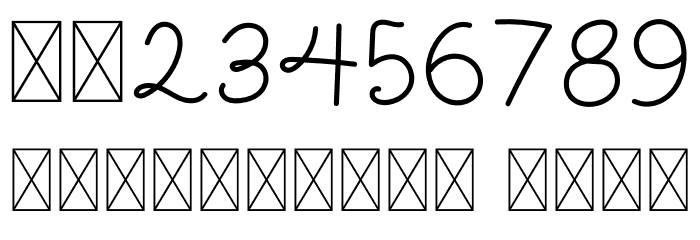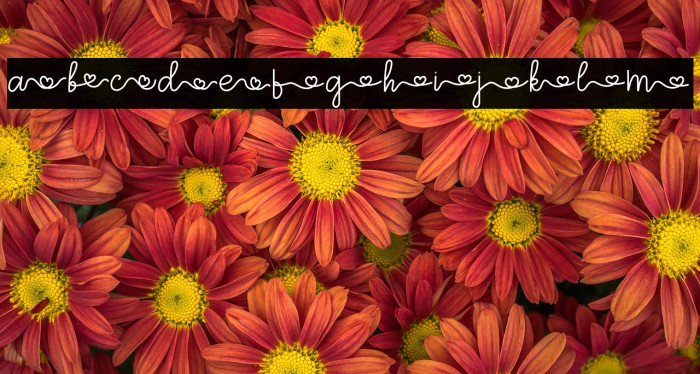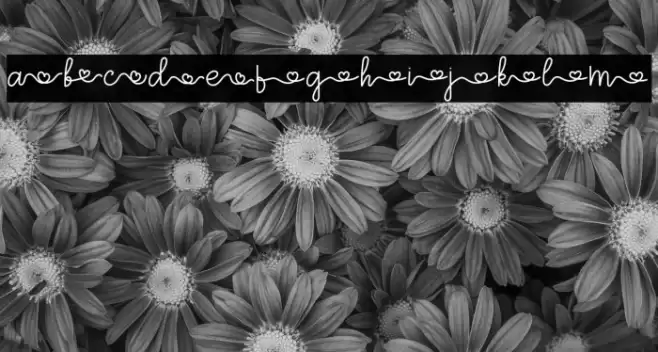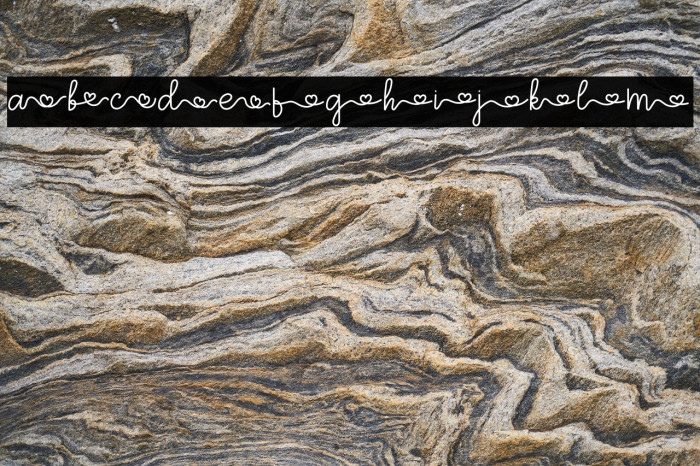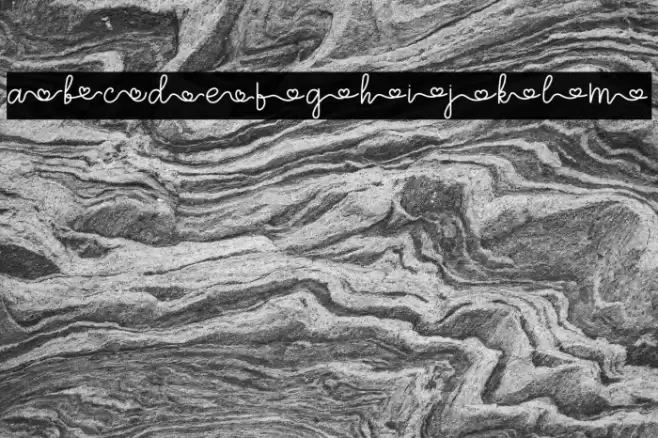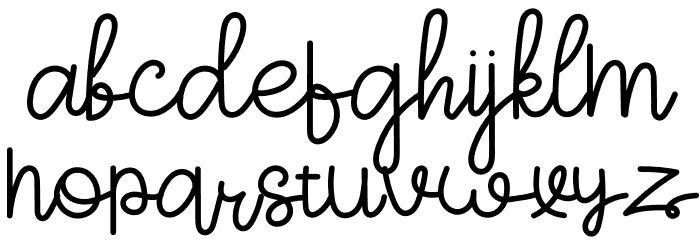
ArohA Demo Font
ArohA Demo Description
This font features a playful and whimsical handwritten style with a smooth, flowing script. The uppercase letters are characterized by their elegant loops and curves, while the lowercase letters maintain a consistent, rounded form. The numbers are simple yet stylish, complementing the overall design. The font's unique charm is enhanced by its heart-shaped embellishments, adding a touch of romance and creativity. Its legibility is maintained despite the decorative elements, making it suitable for a variety of uses where a personal and friendly touch is desired.
Proposed ProjectsIdeal for wedding invitations, greeting cards, personal branding, and creative projects that require a romantic or whimsical touch.